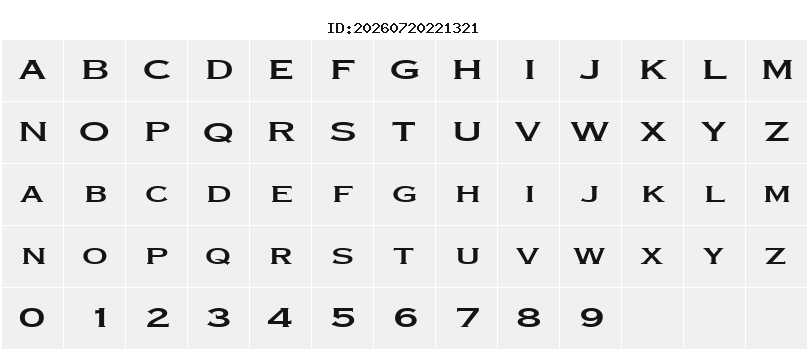
• Font Name: FontFever26 ttext
• Full Font Name: FontFever26 Regular ttext
About FontFever26 ttext.ttf
FontFever26 ttext.ttf is a modern, elegant sans-serif font designed for ultimate readability and visual harmony. Perfect for branding, headlines, web design, and print materials.